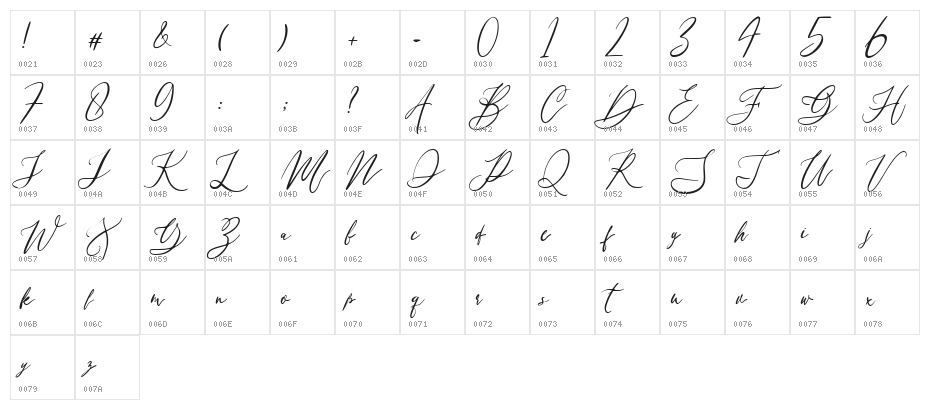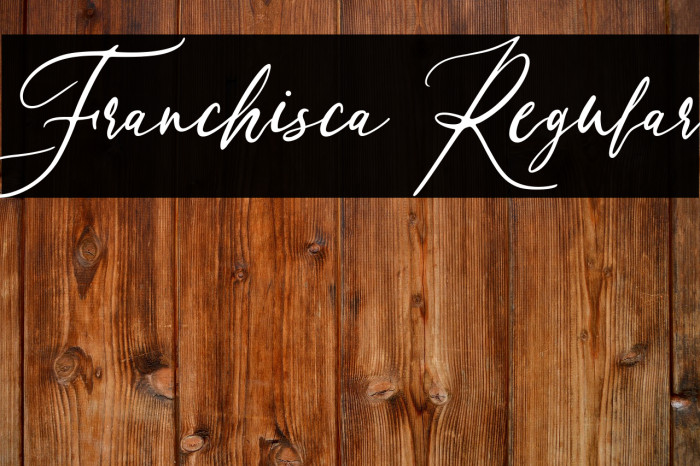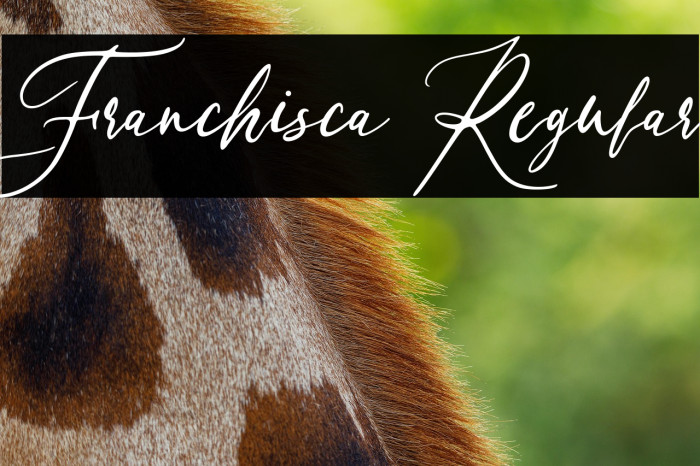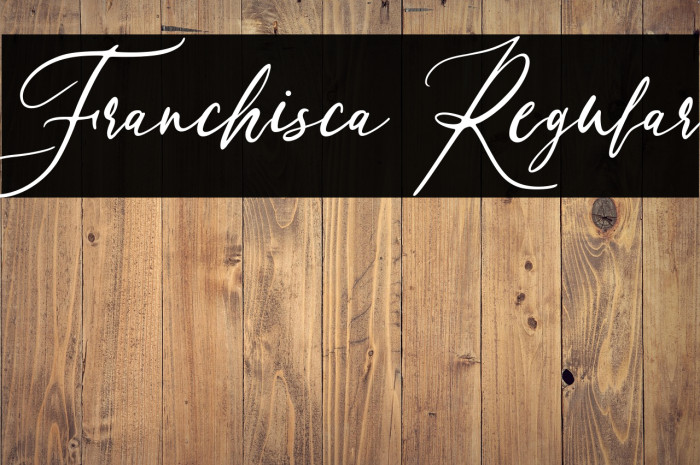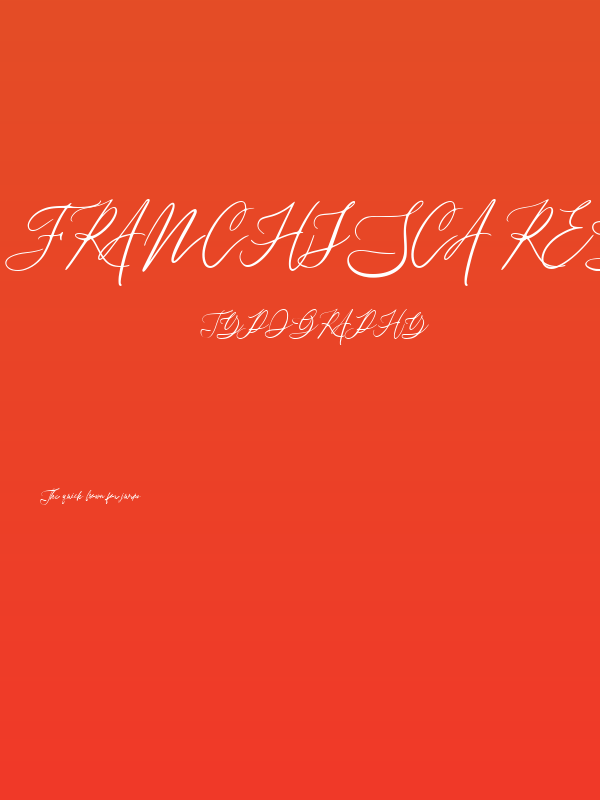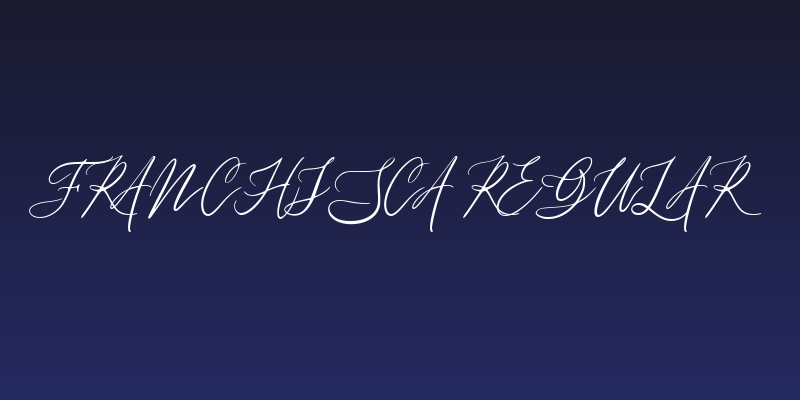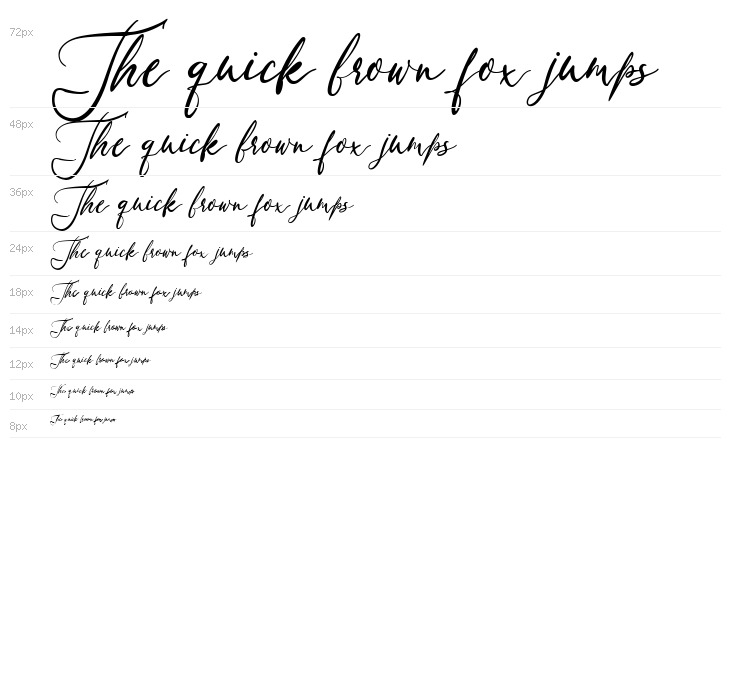
Franchisca Regular Font
Franchisca Regular Description
This font exudes elegance and sophistication with its flowing, cursive style. The characters are intricately designed with smooth curves and delicate lines, creating a sense of fluidity and grace. The uppercase letters are particularly ornate, featuring elaborate loops and swashes that add a touch of flair. The lowercase letters maintain a consistent style, with a slightly more restrained design that complements the uppercase beautifully. The numerals are stylish and easy to read, while the special characters blend seamlessly with the overall aesthetic. This font is perfect for projects that require a touch of elegance and refinement.
| Overall Style | Elegant |
| Use Case | Logos, Invitations, Branding |
| Proposed Projects | Ideal for wedding invitations, elegant branding, and high-end product packaging. |